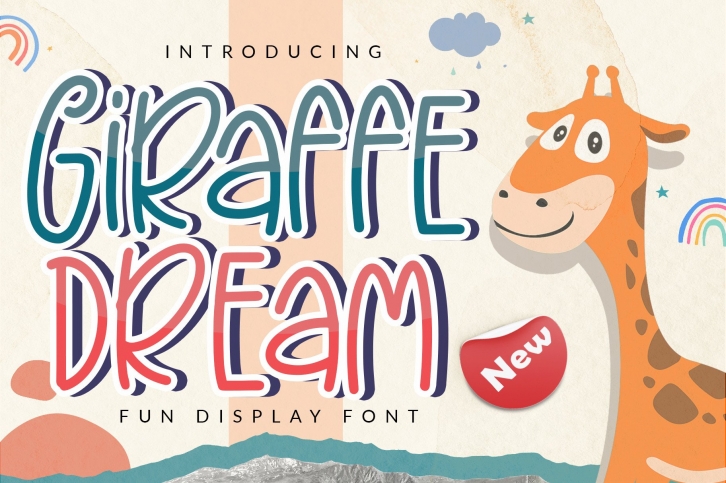
Giraffe Dream is a quirky and playful handwritten font. It has a modern and whimsical style and it will undoubtedly immerse your designs into a magical world.Â